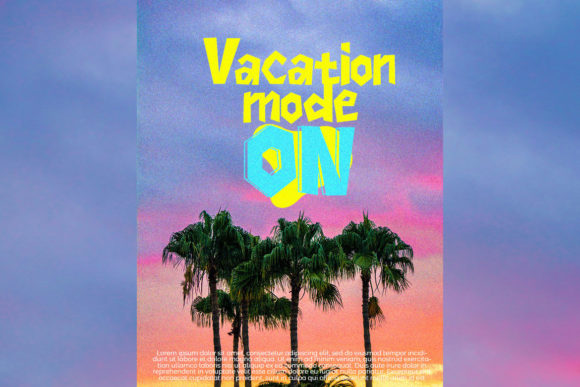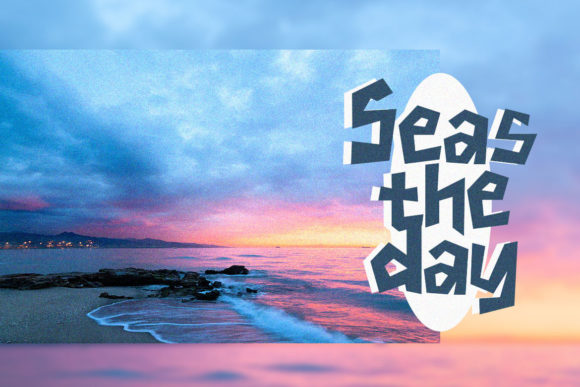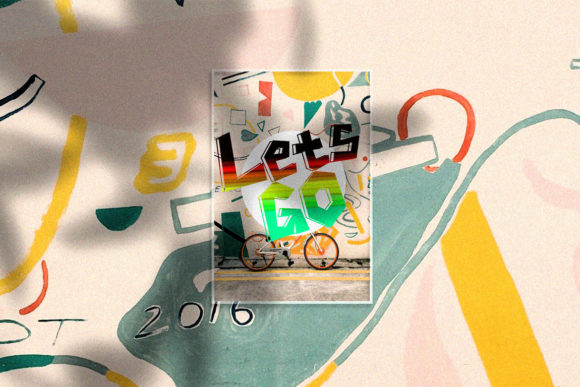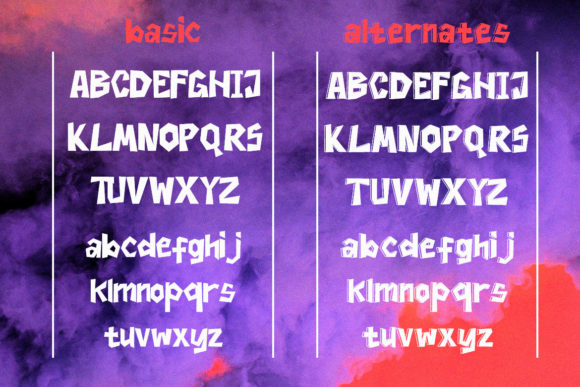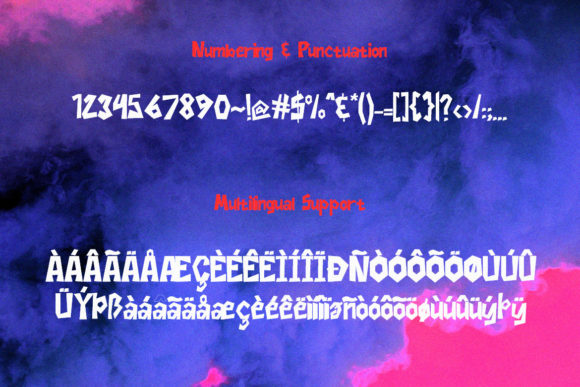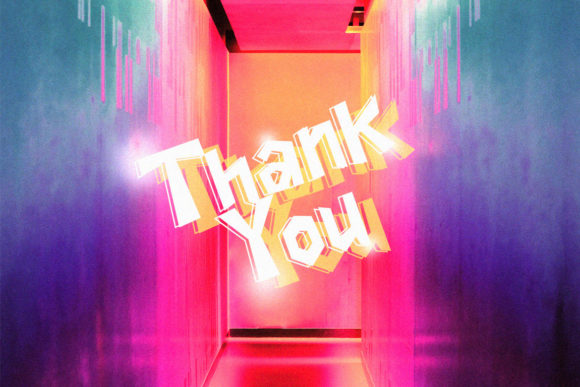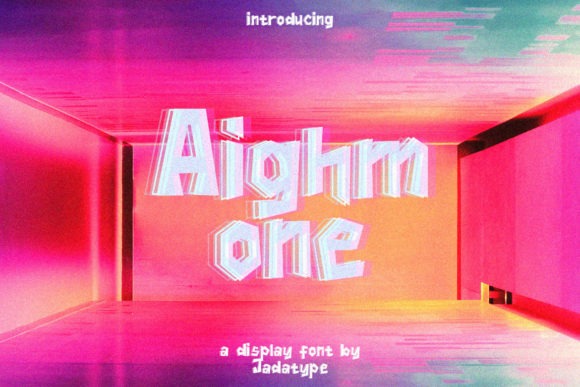
Aighmone Font: Elevate Your Designs with a Bold and Unique Display Font
Are you tired of using the same old fonts in your designs? Do you want to add a touch of personality and uniqueness to your projects? Look no further than the Aighmone font, a bold and eye-catching display font that’s sure to make your designs come alive. In this article, we’ll take a closer look at the Aighmone font, its features, and how you can use it to elevate your designs.
What is Aighmone Font?
Aighmone is a bold and uniquely shaped display font that’s perfect for designers and crafters looking to add a touch of personality to their projects. This font is not just any ordinary font – it’s PUA encoded, which means you can access all of the glyphs and swashes with ease. This makes it incredibly versatile and easy to use, even for those who are new to font design.
Key Features of Aighmone Font
- Bold and Unique Design: Aighmone font has a chunky, lettered design that’s sure to grab attention. Its bold shape and unique style make it perfect for headlines, titles, and other display text.
- PUA Encoded: Aighmone font is PUA encoded, which means you can access all of the glyphs and swashes with ease. This makes it easy to customize your text and add a touch of personality to your designs.
- Versatile: Aighmone font is versatile and can be used in a variety of projects, from digital designs to print materials.
How to Use Aighmone Font in Your Designs
Using Aighmone font in your designs is easy. Here are a few tips to get you started:
- Headlines and Titles: Aighmone font is perfect for headlines and titles. Its bold design and unique shape make it sure to grab attention and add a touch of personality to your designs.
- Logos and Branding: Aighmone font can be used to create unique and eye-catching logos and branding materials. Its versatility and customizability make it perfect for businesses looking to stand out.
- Digital Designs: Aighmone font can be used in a variety of digital designs, from social media graphics to website headers.
- Print Materials: Aighmone font can also be used in print materials, such as brochures, flyers, and posters.
Benefits of Using Aighmone Font
There are many benefits to using Aighmone font in your designs. Here are a few:
- Adds Personality to Your Designs: Aighmone font adds a touch of personality and uniqueness to your designs, setting them apart from the rest.
- Easy to Customize: Aighmone font is PUA encoded, making it easy to customize and add your own touch to your designs.
- Versatile: Aighmone font can be used in a variety of projects, from digital designs to print materials.
- Time-Saving: Aighmone font is easy to use and saves you time in the design process.
| Author | jadatype |
In conclusion, Aighmone font is a bold and uniquely shaped display font that’s perfect for designers and crafters looking to add a touch of personality to their projects. Its PUA encoded design makes it easy to customize and use, and its versatility makes it perfect for a variety of projects. Whether you’re looking to create eye-catching headlines, unique logos, or standout digital designs, Aighmone font is the perfect choice.